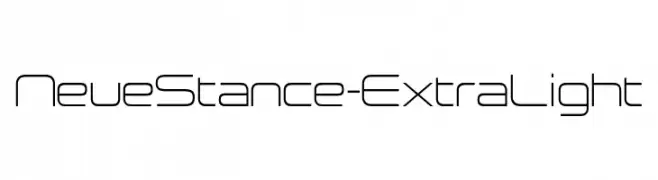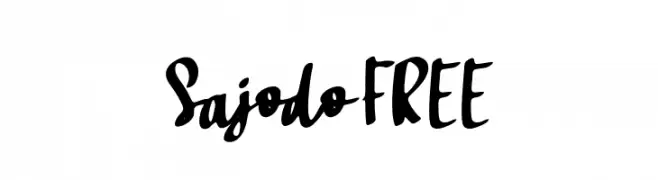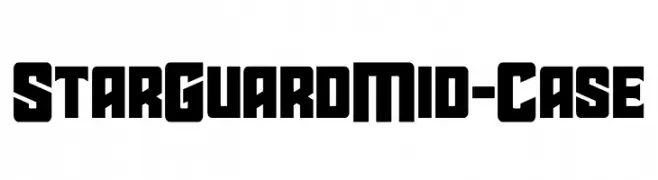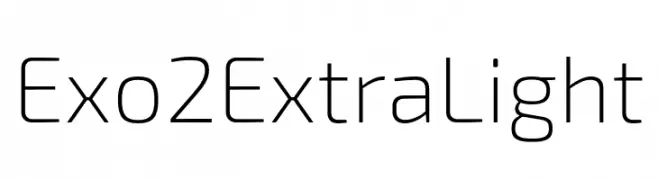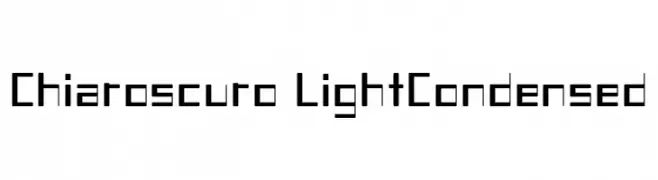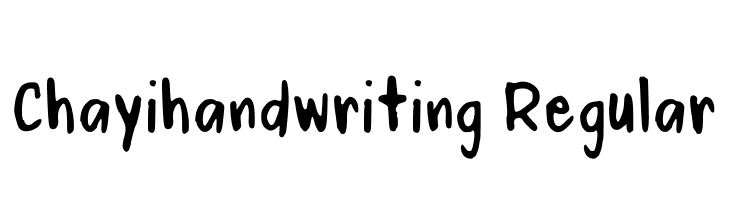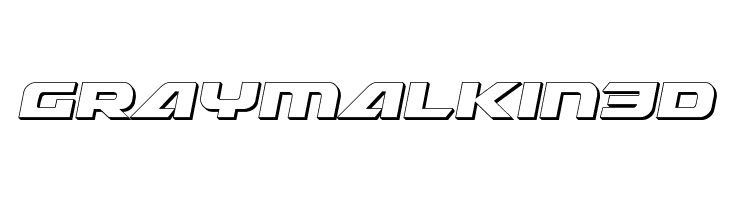
A sleek, modern font with clean, geometric lines and a minimalist aesthetic.
A playful and energetic script font with fluid, continuous strokes.
A bold, italicized font with angular, futuristic design and high contrast.
A bold, handwritten font with a playful and energetic style.
Bold, geometric font with a futuristic, sci-fi aesthetic.
A bold, futuristic font with a leftward slant and geometric design.
A sleek, modern font with clean lines and geometric structure.
A modern, elegant handwritten script font with fluid, connected letterforms.
A playful, artistic handwritten font with elegant, narrow forms and whimsical strokes.
A modern, geometric, and condensed font with a technical appearance.